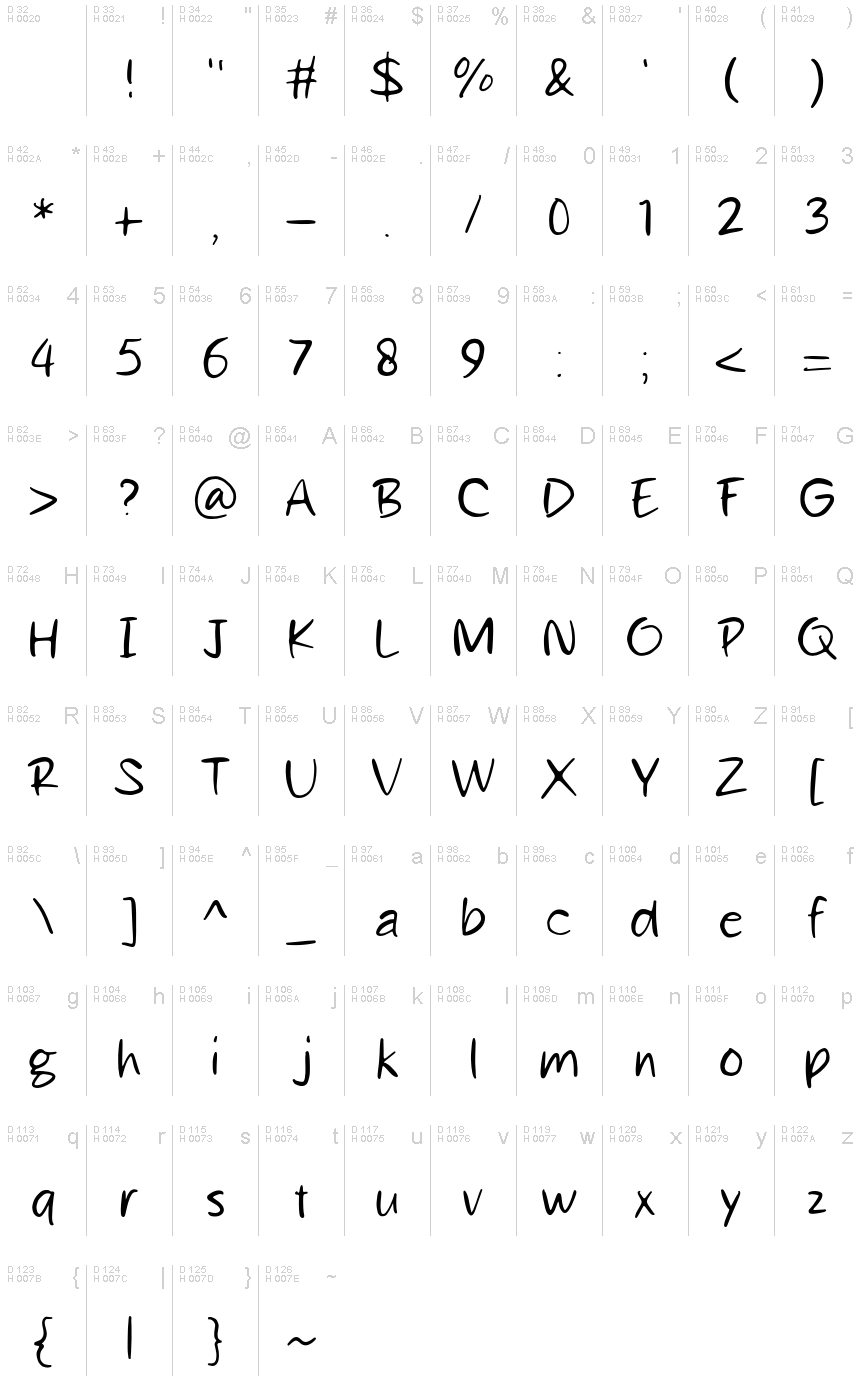
Belaga
Belaga font is a handwritten typeface designed by MJType, capturing the essence of casual and expressive script. Its modern touch and organic flow add an authentic and personable style, making it ideal for creating genuine connections through text. The font's artistic elegance can help designers achieve unique results that can resonate with their audience.
A free handwritten font, Belaga enhances artists and designers' options when developing greeting cards, invitations, book covers, business cards, branding designs or logos. It also pairs well with printed projects like magazines and newspapers as well as digital platforms such as social media post designs or blog entries.